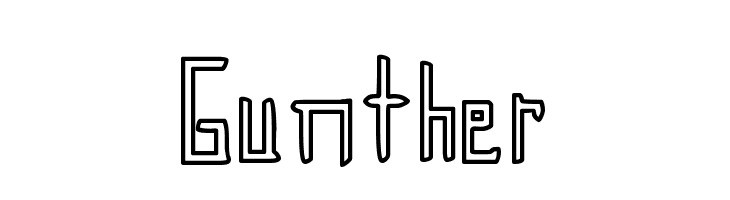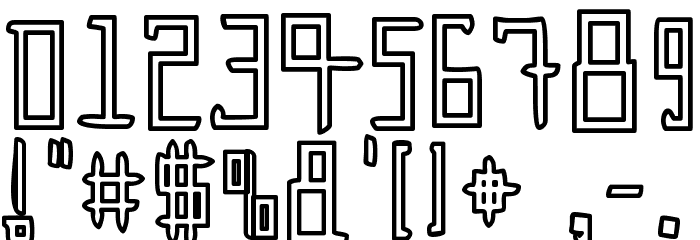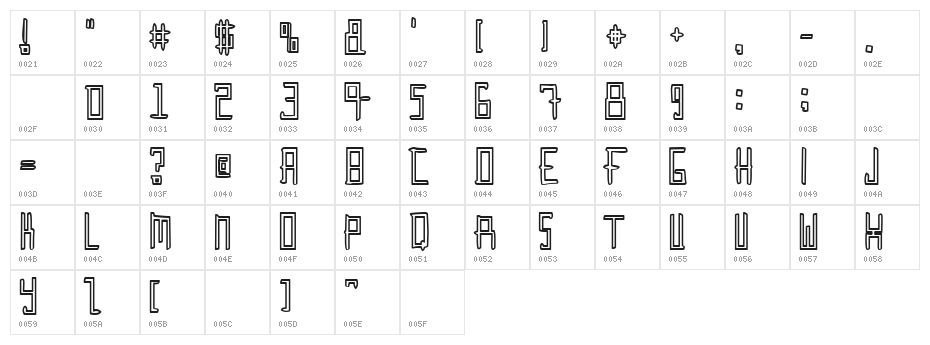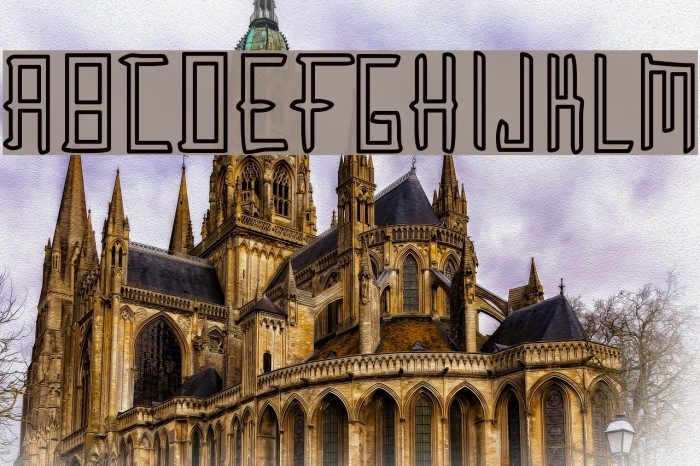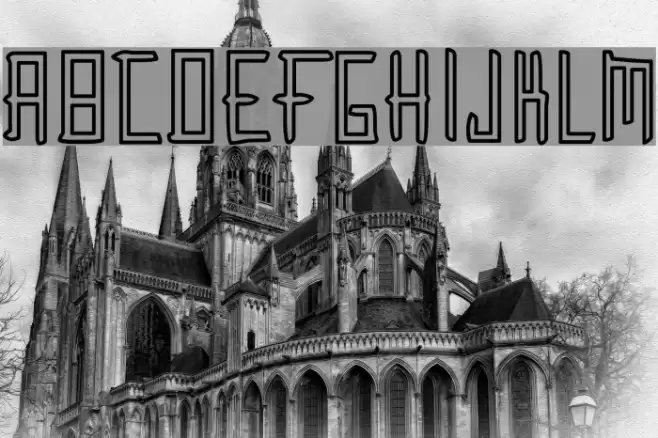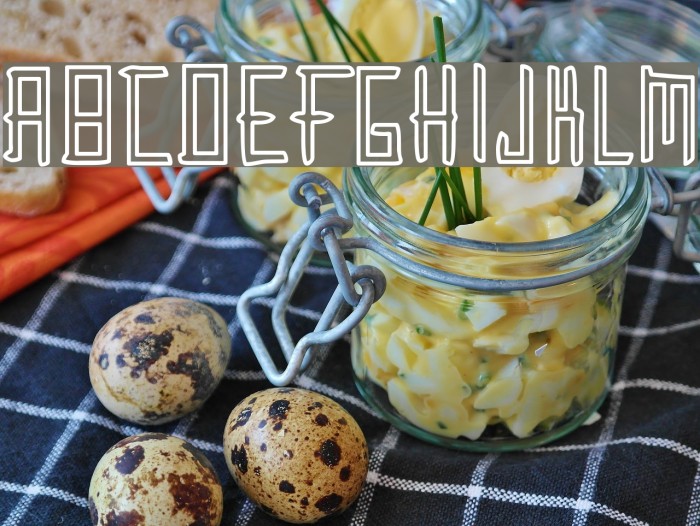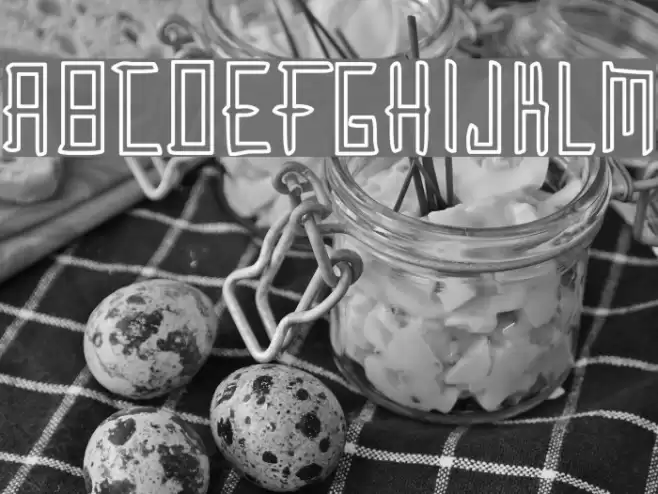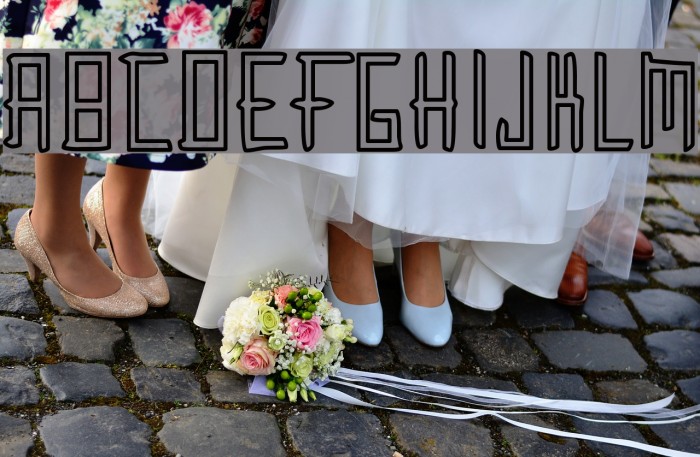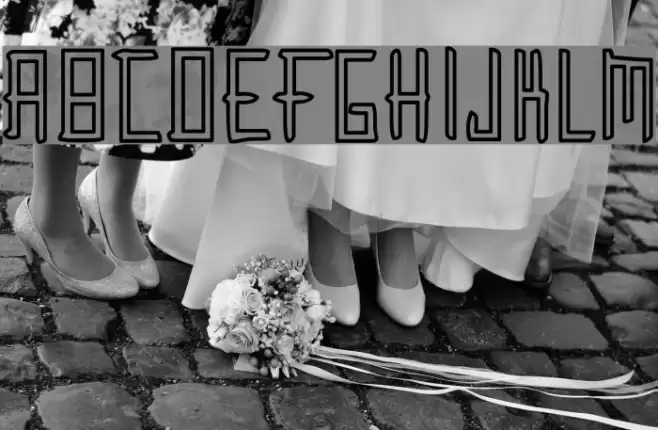
Gunther Font
Gunther Description
This font features a unique, geometric design with a hollow, outlined appearance. Each character is constructed with bold, uniform lines that create a striking visual impact. The uppercase letters maintain a consistent height and width, while the lowercase letters follow a similar structure but with slight variations in height. The numerals are distinct and easily recognizable, adhering to the same geometric style. Special characters are creatively designed, adding to the font's overall aesthetic. This font's modern and artistic style makes it suitable for eye-catching designs.